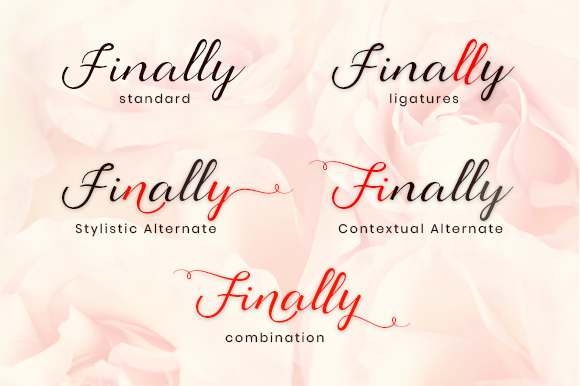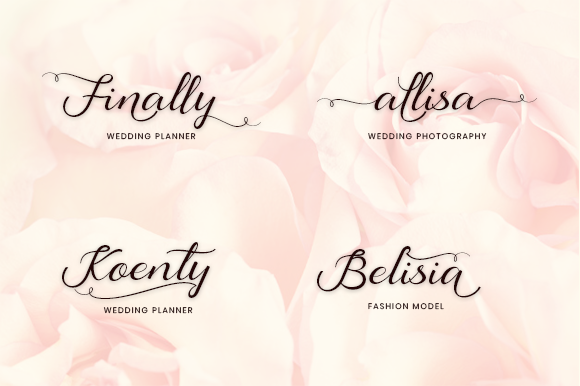
Introduction to Fionna Font
As you sit down to plan your next creative project, the right design resources can make all the difference. You’ve got a great idea, but it’s just missing that special something to bring it to life. That’s where the perfect font comes in – and we’re excited to introduce you to the elegant Fionna Font!
Imagine yourself surrounded by paper and pen, brainstorming ideas for a wedding invitation or a social media post. You’re searching for a font that exudes authenticity and charm, something that will transport your audience to a world of warmth and personality. Fionna Font is here to make that vision a reality, with its beautiful, handwritten style and transparent background that lets your design shine.
Whether you’re a seasoned designer or just starting out, Fionna Font is a valuable addition to your toolkit. With its high-quality design and free download option, you can bring your creative ideas to life without breaking the bank. So why settle for a generic font when you can have the unique charm of Fionna Font to elevate your design project?
Key Features of Fionna Font
- High-quality design resource perfect for creative projects
- Includes a transparent background for seamless integration into designs
- Supports a wide range of languages and characters, making it a versatile font
- Designed with a unique and playful style, ideal for children’s books, cartoons, and other creative projects
Honest Review: Fionna Font
As a designer, I’m always on the lookout for high-quality design resources that can elevate my creative projects. Recently, I stumbled upon the Fionna Font, and I’m excited to share my honest review with you.
- ✨ The Fionna Font has a beautiful, modern aesthetic that’s perfect for a wide range of creative projects.
- ✨ The font files include a transparent background, making it easy to integrate into any design project.
- ⚠️ The font only comes in a few weights, which might limit its versatility in certain designs.
- ⚠️ The font’s italics are not as smooth as I’d like, which can be a bit jarring in certain contexts.
Overall, I’d say the Fionna Font is a solid choice for designers looking for a high-quality, free design resource. While it’s not perfect, its strengths outweigh its limitations, and I’d definitely consider using it again in the future.
Fionna Font
Fionna Font is a high-quality design resource that offers a free download for creative projects. This versatile font is perfect for designers who want to add a touch of elegance to their work.
Tips for Getting the Most Out of Fionna Font
To get the most out of Fionna Font, use it with a transparent background to create a clean and modern design. You can also experiment with different font sizes, colors, and styles to add depth and interest to your work.
Common Use Cases for Fionna Font
Fionna Font is perfect for use in logos, graphics, and branding materials. It’s also great for creating beautiful typography for websites, social media, and other digital platforms.
It compares to Fionna Font in that it’s more versatile and offers a wider range of font styles. However, it lacks the whimsical feel of Fionna Font, making it less suitable for projects requiring a playful touch.
Montserrat Font is a geometric sans-serif typeface designed for urban environments. It’s perfect for digital design resources, such as website headers, mobile apps, and social media graphics. When to use: Any project requiring a strong, modern font with a urban feel.
It compares to Fionna Font in that it’s more formal and structured, making it less suitable for creative projects requiring a playful touch. However, it’s a great alternative for designers looking for a high-quality font with a strong, urban feel.
Yes, the Fionna Font is designed to be used with a transparent background, making it perfect for projects that require a high level of design flexibility. You can easily place the font on top of any background image or color.
Is the Fionna Font a high-quality design resource?
Yes, the Fionna Font is a high-quality design resource, carefully crafted to provide a unique and stylish look for your creative projects. Its high-quality design ensures that it will look great on various devices and screen sizes.